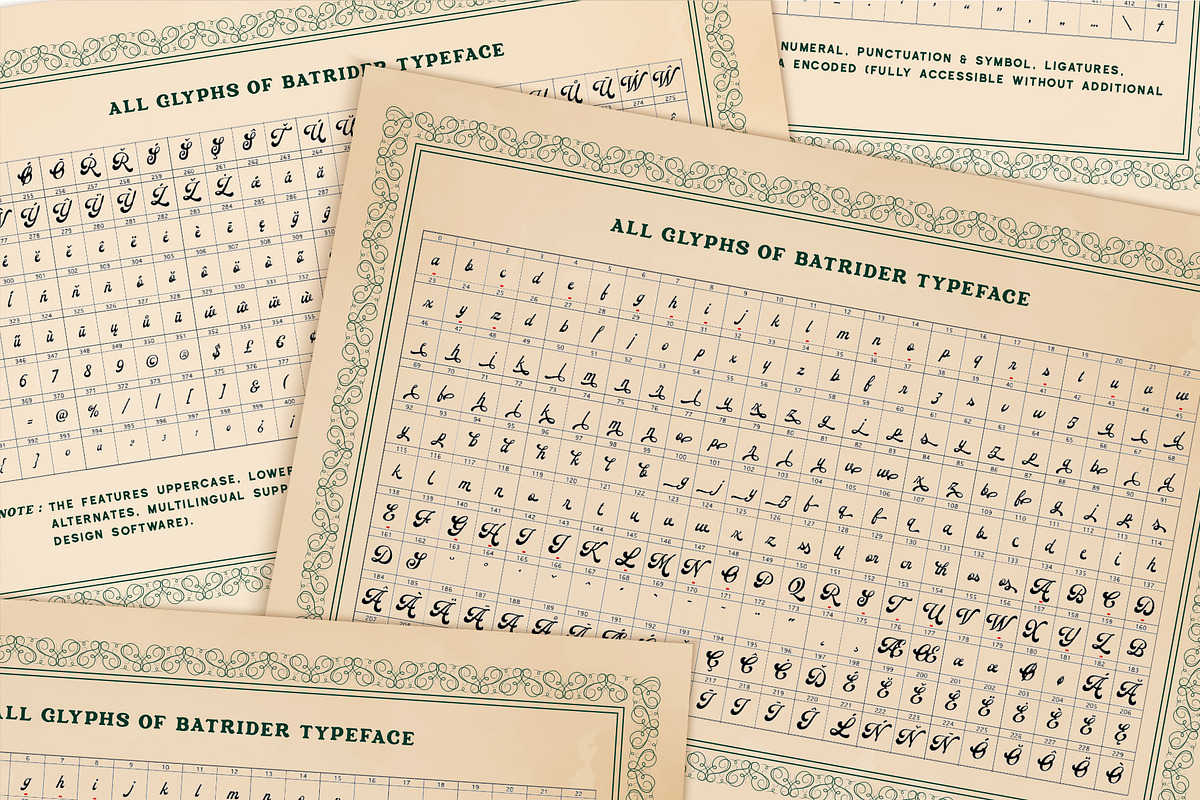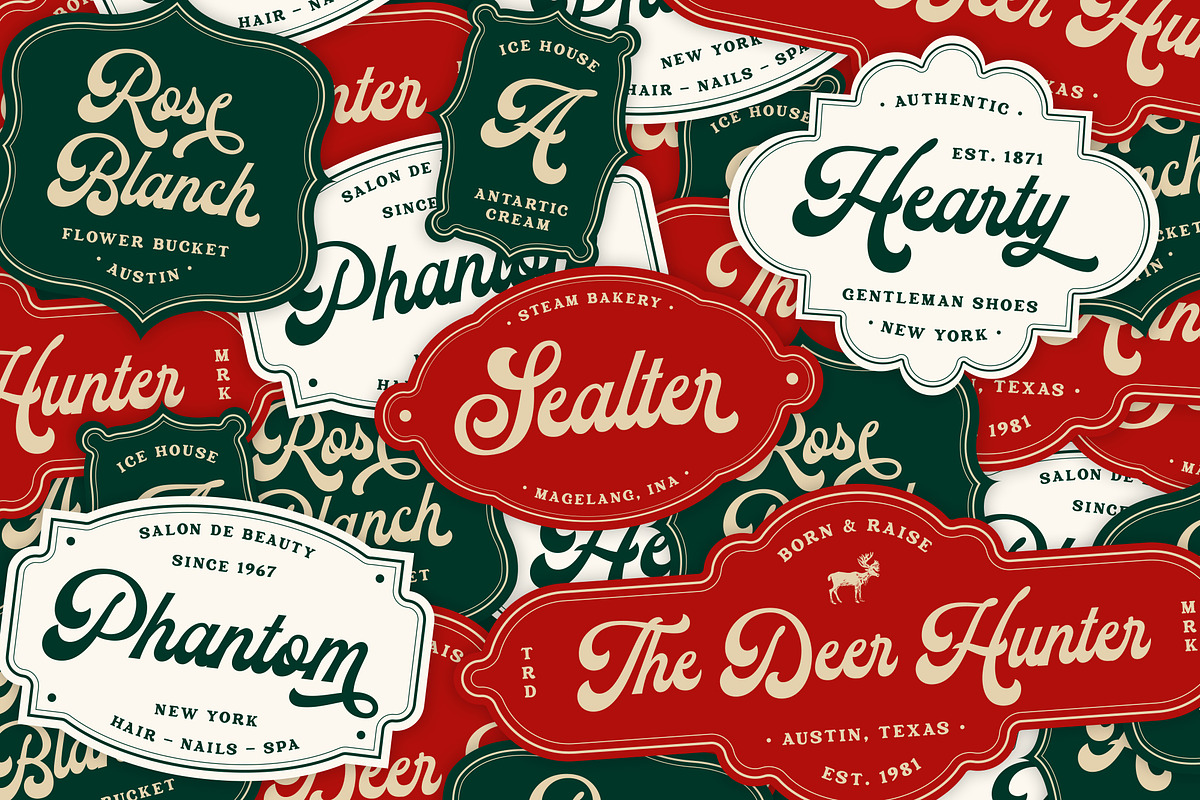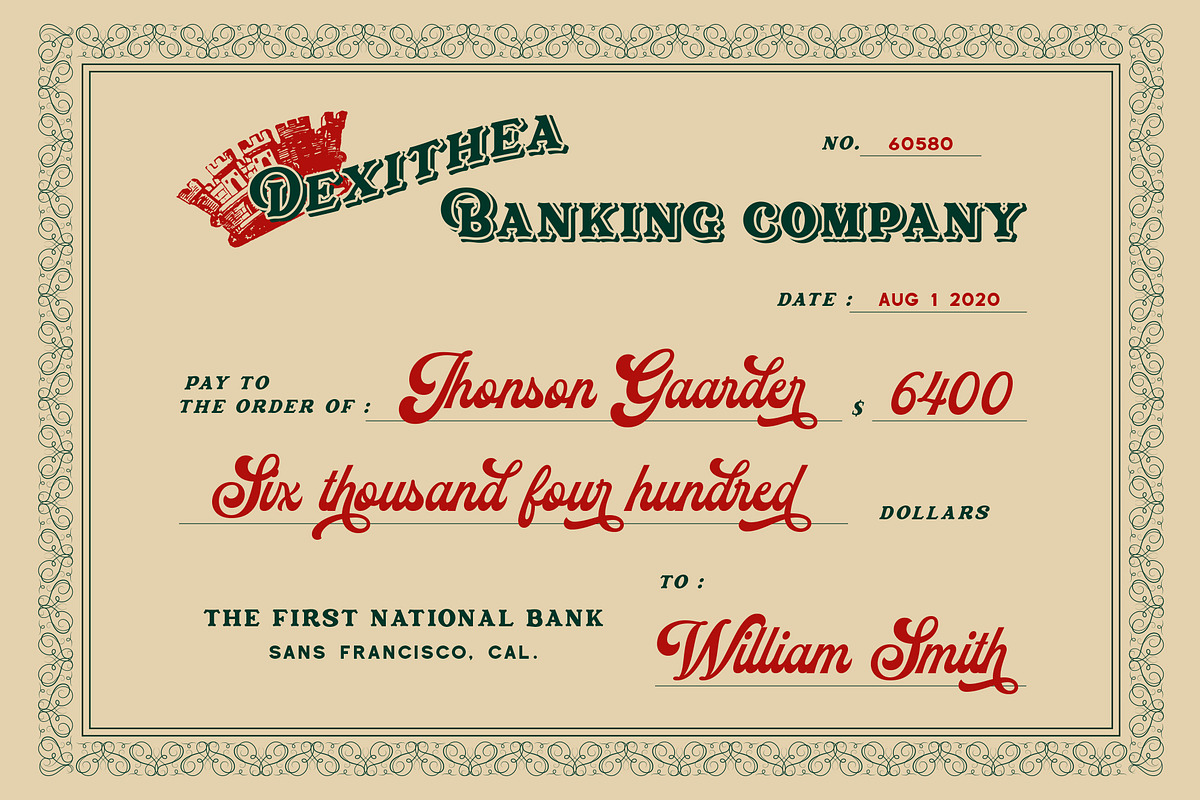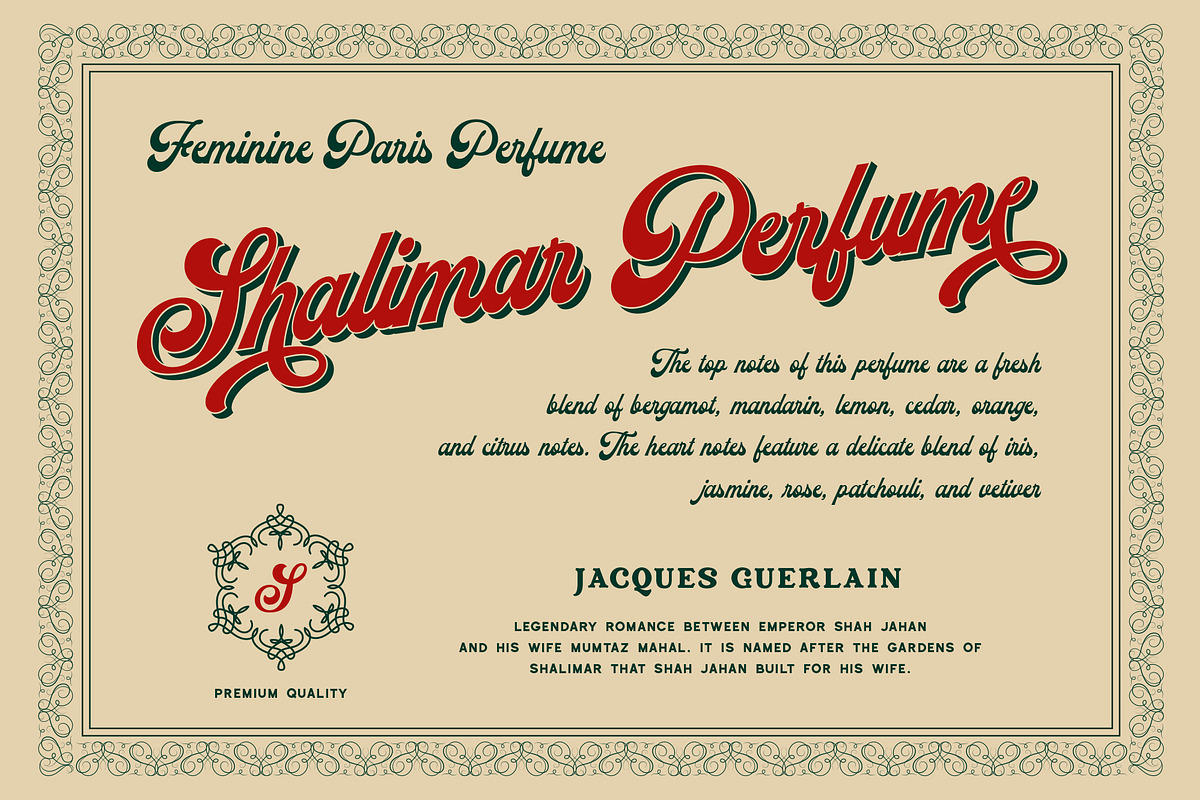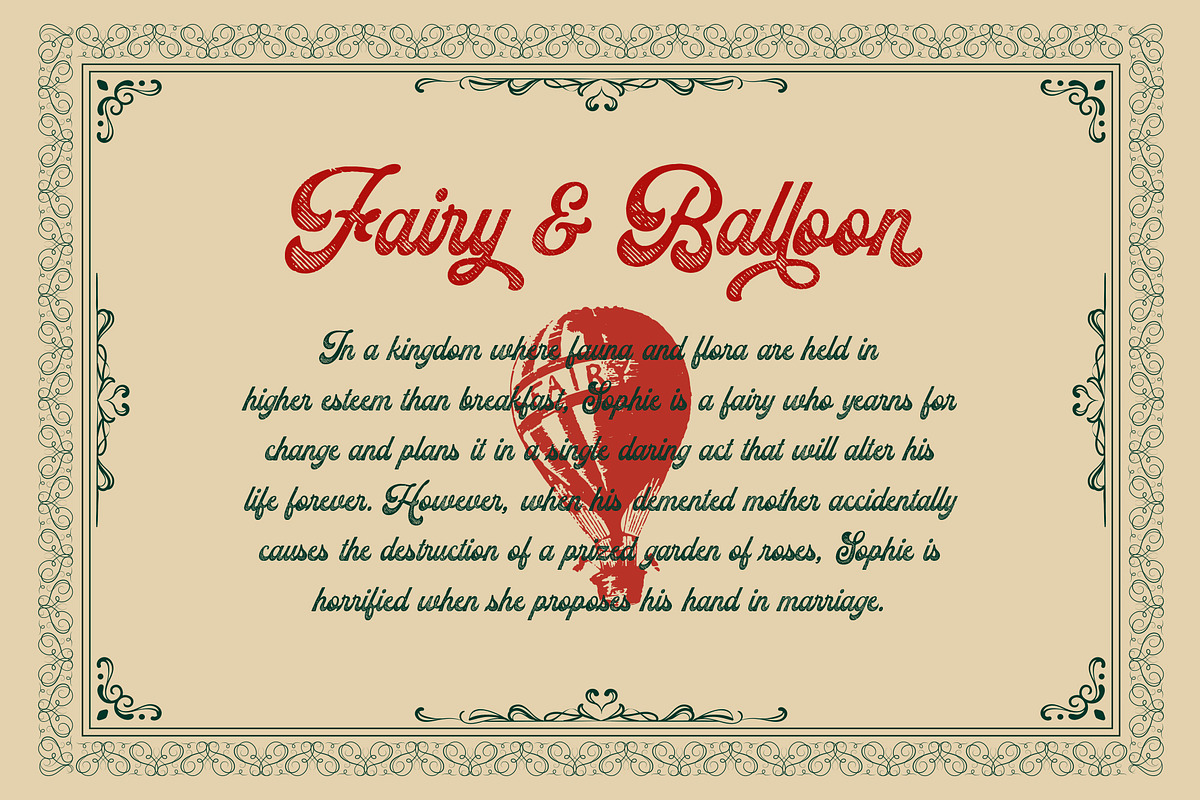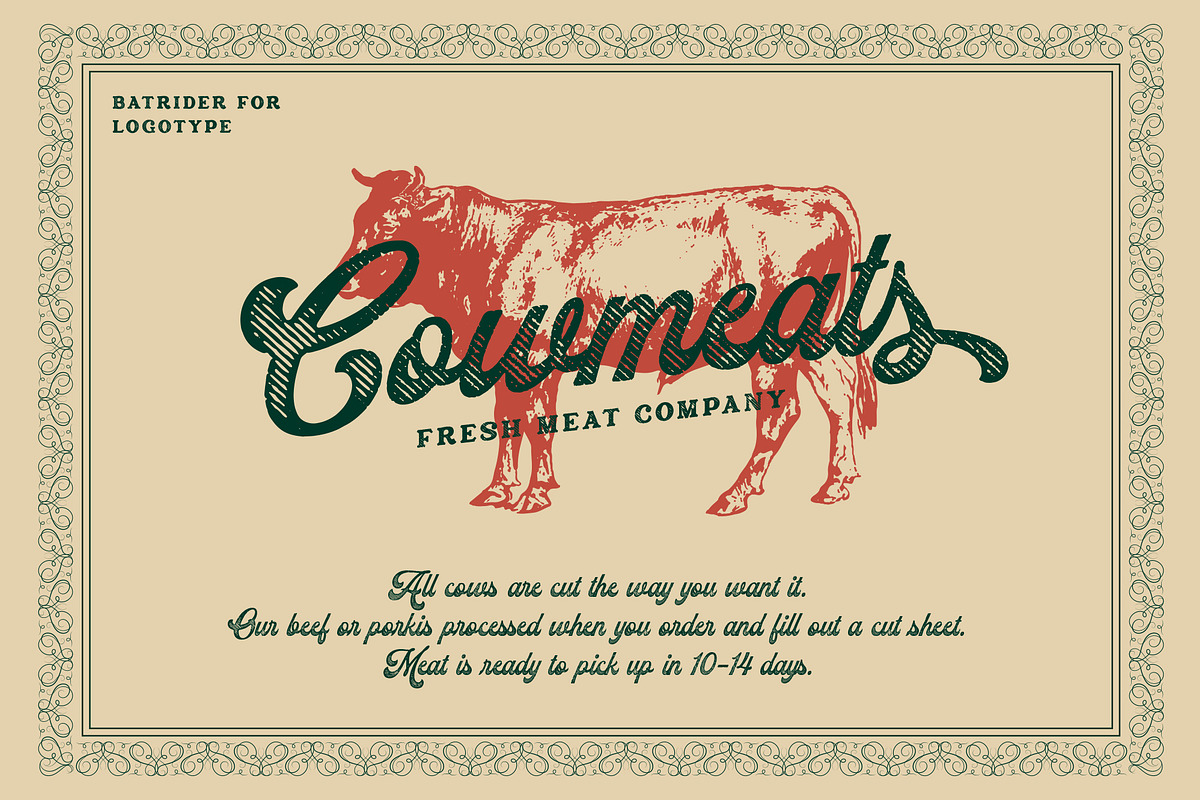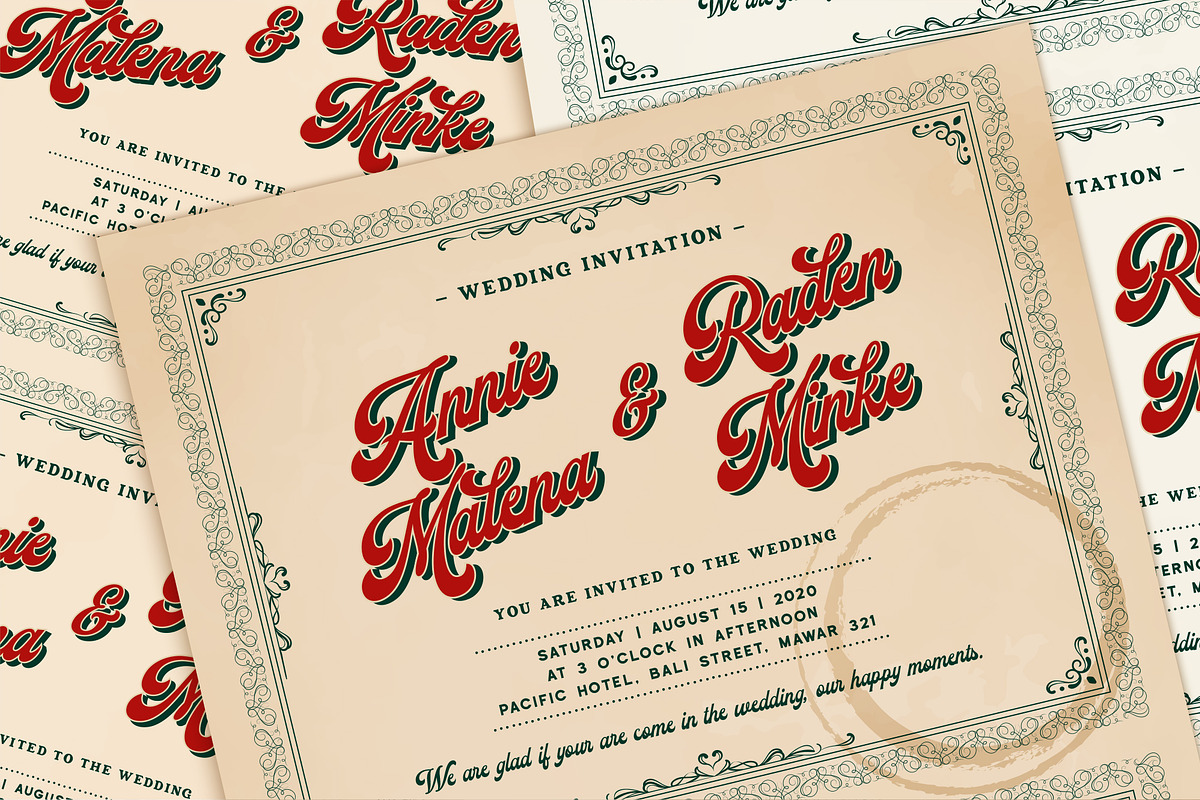
Batrider | 2 Font Styles
Introducing Batrider – Script Display Typefaces
Batrider inspired by vintage lettering in old label. This come with two style: regular and textured typefaces. Batrider textured consists rounded corner and authentic textured for organic printing look. Carefully made with perfectly horizontal vertical bezier handles. Every single letter contains beautiful alternates characters(ss01 - ss16)and feature ligatures.
The Batrider matches applies in some designs such as the logotype, brand, packaging, branding, quotes, business cards and more custom design. The features uppercase, lowercase, numeral, punctuation & symbol, ligatures, alternates, multilingual support, PUA encoded (fully accessible without additional design software).